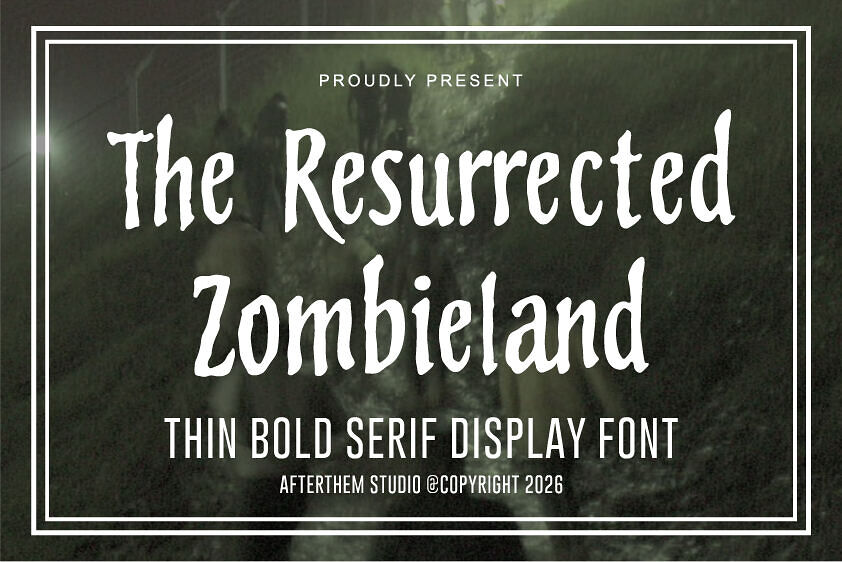
The Resurrected Zombieland Font is a striking hand-drawn display typeface with a bold, horror-inspired edge perfect for zombie, thriller, and apocalyptic designs.
Its tall, slightly distressed letterforms blend thin and strong strokes to create eerie, cinematic appeal that works great in posters, titles, and themed branding. Clean yet haunting, this font elevates Halloween graphics, movie art, and creative projects with a spooky, eye-catching personality that feels both modern and unsettling.